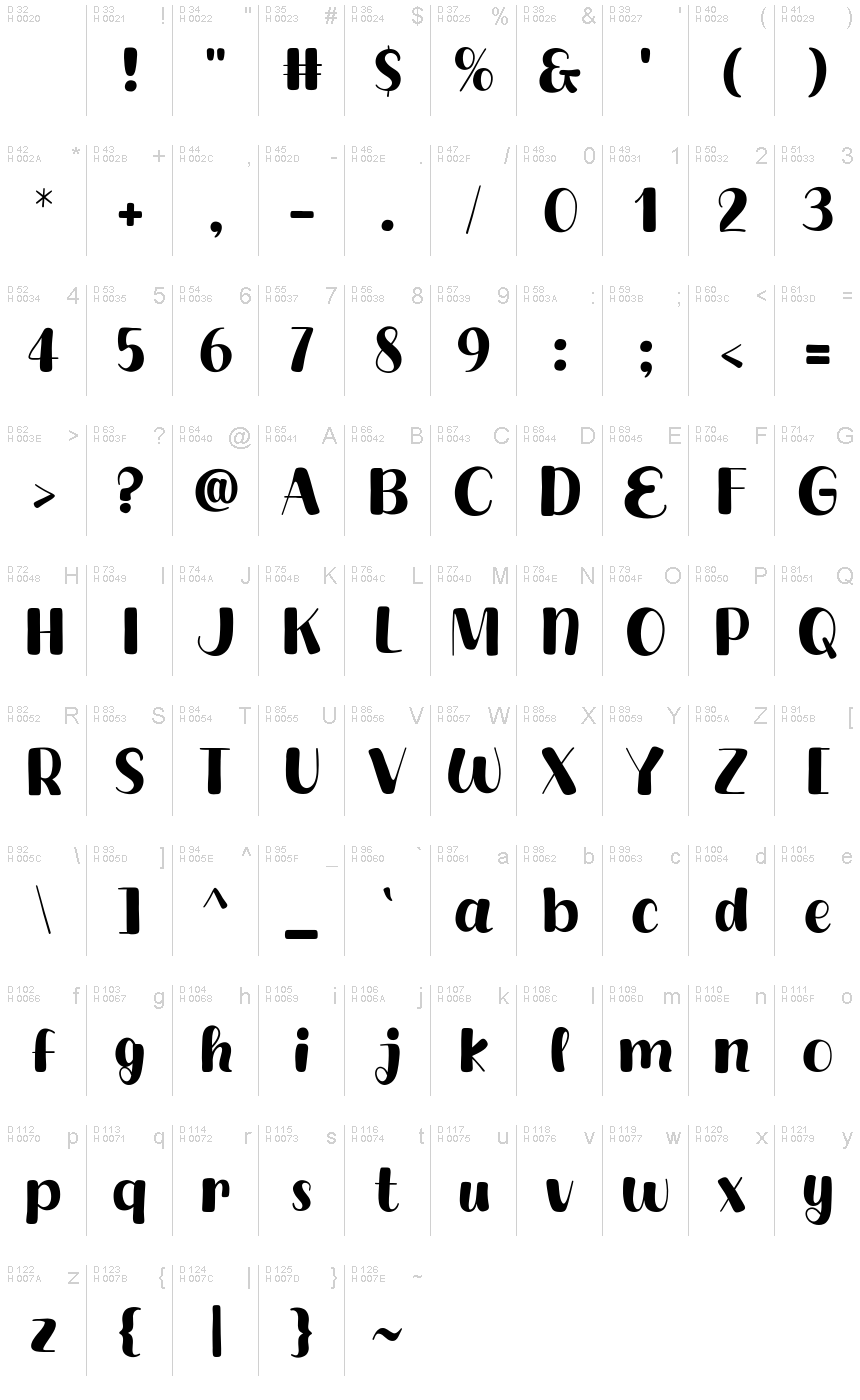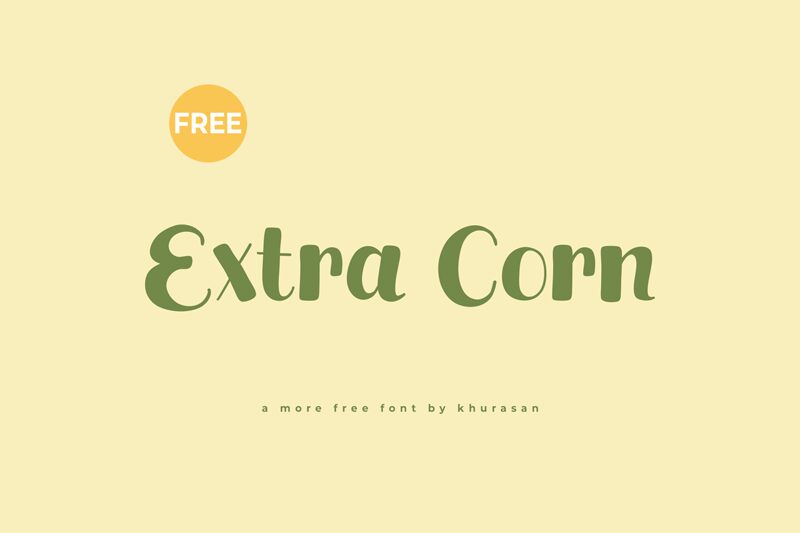
Extra Corn
Extra Corn font by Khurasan combines bold cartoon elements with playful edges, making it a standout modern display free font. The charmingly imperfect design brings a childlike aesthetic, ensuring your work gets never-ending attention. Its elegant twists make the piece easy to read without missing any of its glow.
Use this cartoon font in magazine headings, product labels, brand names, ads designs for kid-related projects (books covers/toy packages), clothing labels, movie posters or intros/outros of YouTube videos. Also useful in stickers used in journalism projects or school presentations.